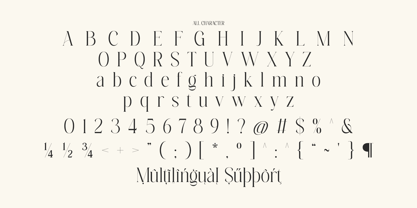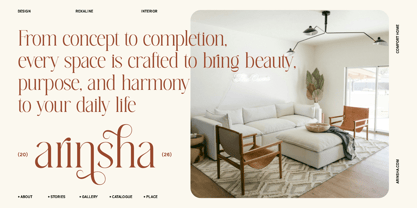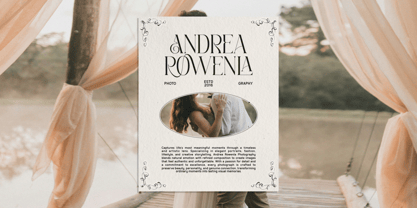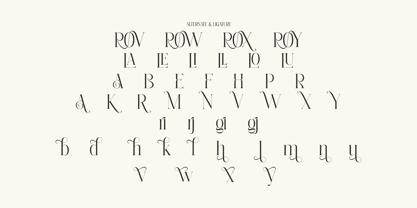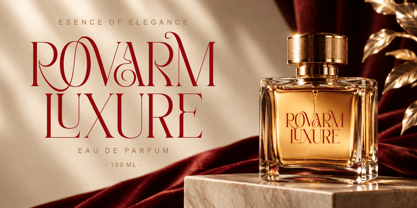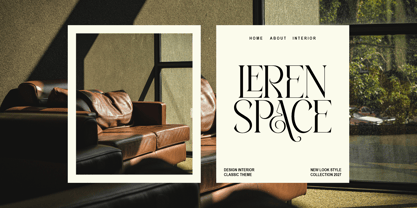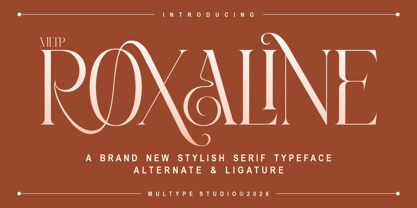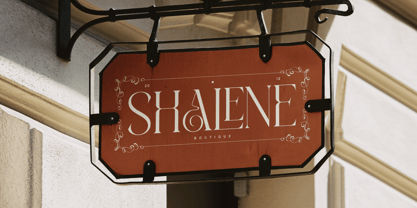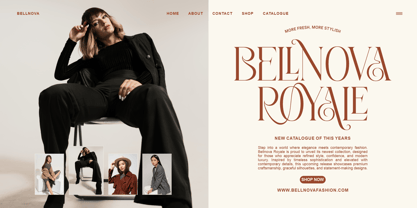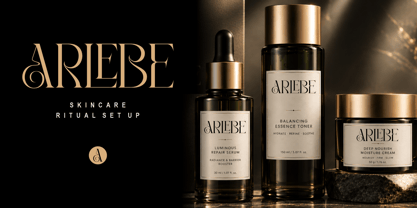
MLTP Roxaline
MLTP Roxaline is a premium stylish serif font that seamlessly combines timeless elegance with a modern and sophisticated aesthetic. Designed with graceful curves, refined letterforms, and distinctive decorative details, MLTP Roxaline delivers a luxurious visual identity that stands out across a wide range of creative projects. Its unique blend of classic serif beauty and contemporary design trends makes it an ideal choice for designers, brands, and businesses seeking a high end, memorable, and professional appearance.
Crafted with exceptional attention to detail, MLTP Roxaline offers a perfect balance of readability, versatility, and artistic expression. The font features elegant contrasts, stylish ligatures, and beautifully crafted characters that add a sense of exclusivity and refinement to every design. Whether used for bold headlines, elegant logos, luxury packaging, or sophisticated editorial layouts, MLTP Roxaline brings a premium and fashionable touch that elevates visual communication.
Perfect for luxury branding, fashion magazines, beauty and skincare packaging, cosmetic brands, jewelry logos, boutique businesses, wedding invitations, event stationery, social media graphics, product labels, advertising campaigns, book covers, lifestyle content, and premium marketing materials, MLTP Roxaline adapts effortlessly to both modern and classic design styles. Its versatility allows designers to create stunning visual experiences that feel elegant, fashionable, and timeless.
With its strong branding potential and sophisticated personality, MLTP Roxaline is an excellent choice for businesses and creatives looking to establish a distinctive brand identity. Whether you are designing for luxury fashion, beauty products, high-end retail, hospitality, or creative agencies, MLTP Roxaline helps create a polished, upscale, and unforgettable impression.